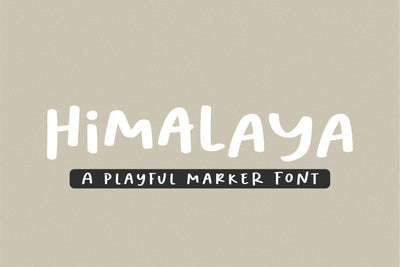
Himalaya - Handwritten Cute Girly Font from Jimtype Studio
Himalaya is such a fun font, it comes with a fun and playful style which is perfect to make any design stand out! This font is perfect for creating quotes, logos, creating handwritten notes or just adding a hand-written touch to any project!
Multilingual support:
ÁÂÄÀÅÃÇÉÊËÈÍÎÏÌÑÓÔÖÒØÕŒŠÚÛÜÙÝŸŽ
àáâãäåçèéêëìíîïñòóôõöøœùúûüýÿšž